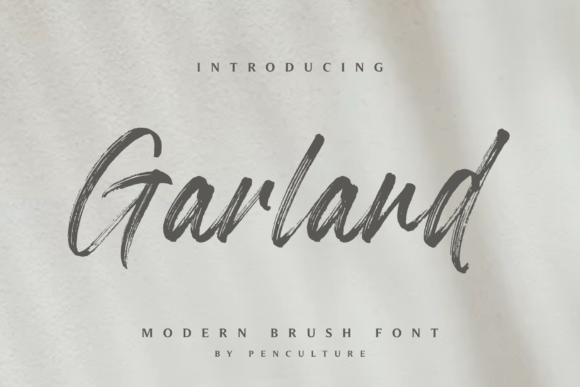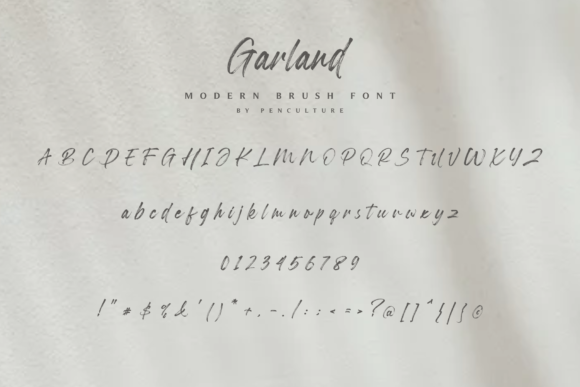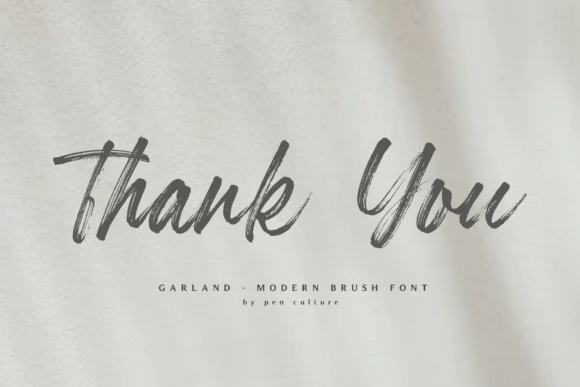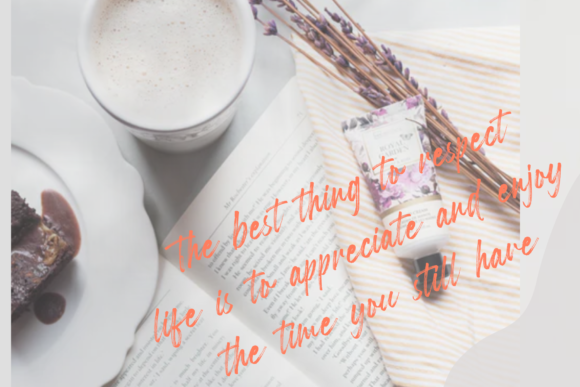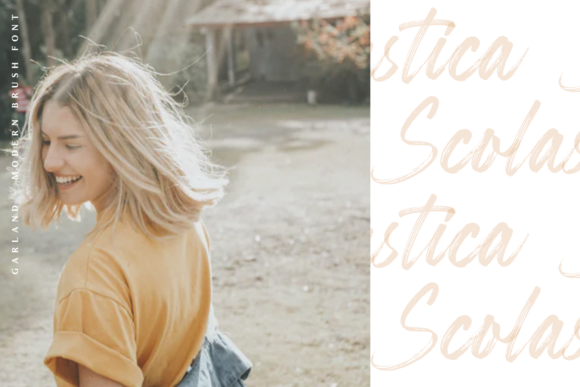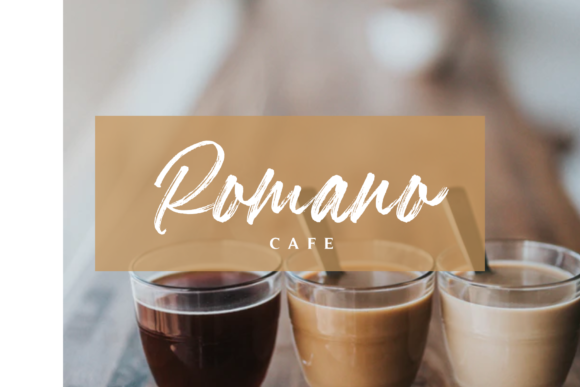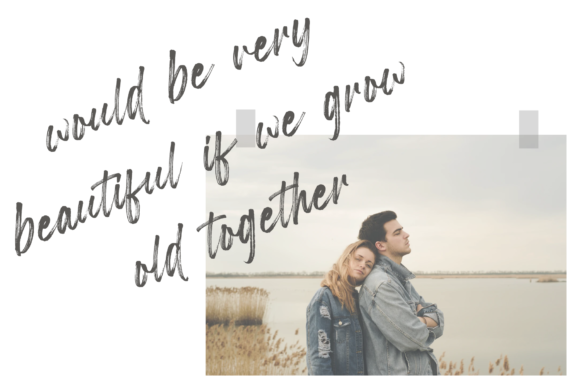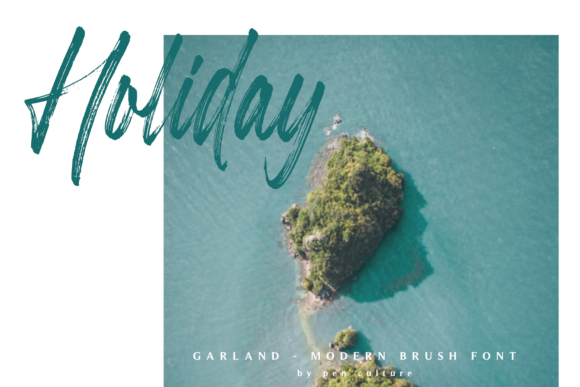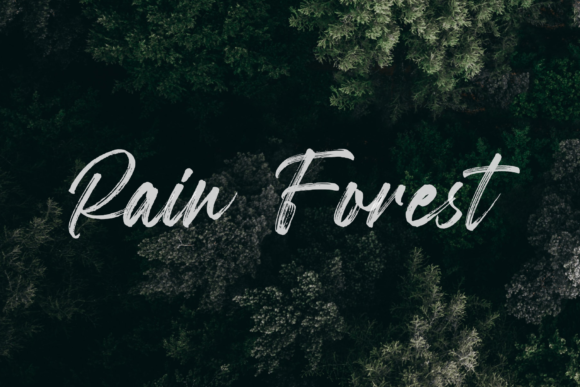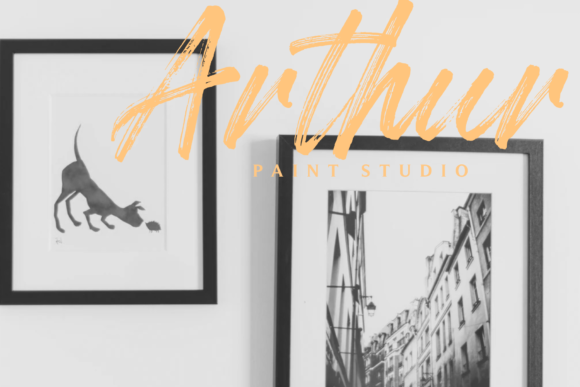
Garland Font
About Garland Font
Garland is a casual, fun script font, created by using a brush pen. Clean and a little bit quirky, this font is the perfect fit for all of your logos, branding, social media, and crafty DIY projects.